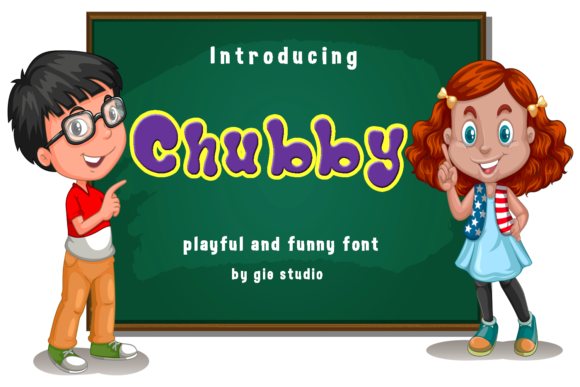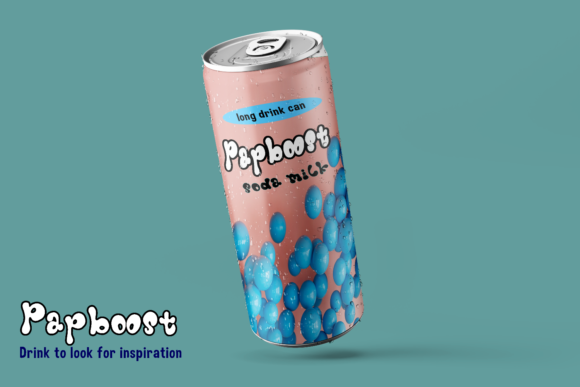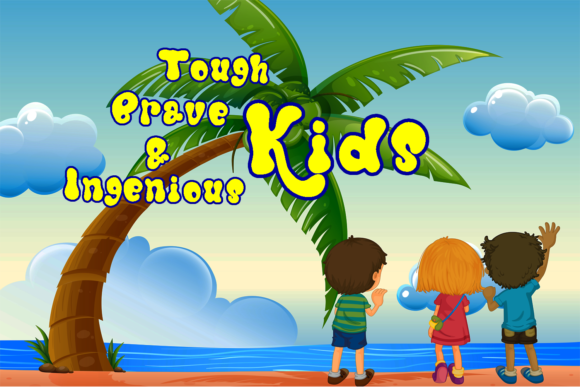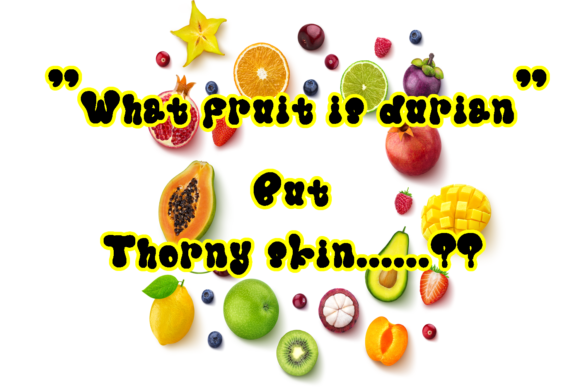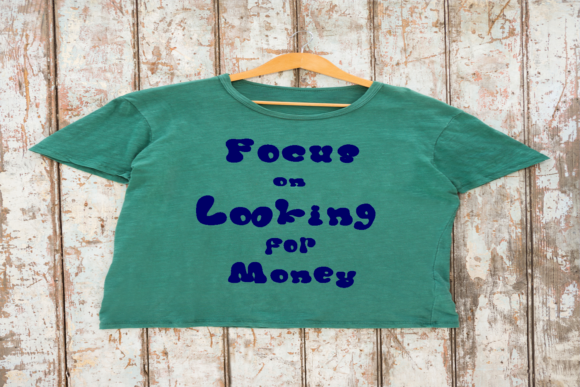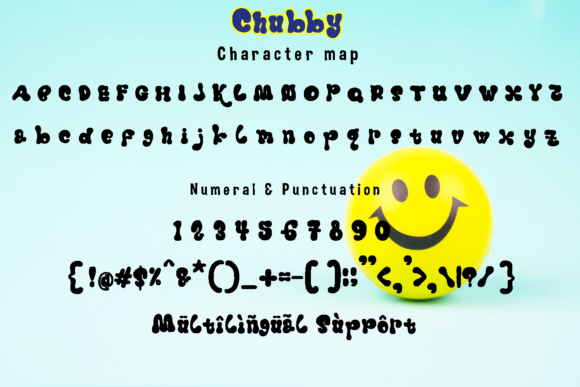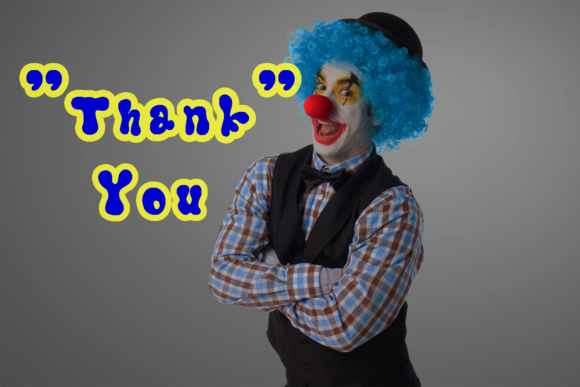
Get Ready to Play with the Chubby Font
Do you remember the moment when you discovered the perfect font to bring your child’s storybook to life? The one that made you smile and feel like a kid again? For many designers, that moment is just around the corner with the Chubby Font.
This adorable color font is designed to add a playful touch to any kids’ project. Its fun and quirky look is sure to delight children and parents alike. Whether you’re creating a birthday invitation, a book cover, or a fun logo, the Chubby Font is the perfect companion. With its compatibility with popular design software like PhotoShop, Illustrator, Silhouette, and Inkscape, you can unleash your creativity without any hassle.
Chubby Font Key Features
- Unique Characteristics: Chubby Font features a distinctive, rounded design with a soft, playful feel, making it ideal for use in children’s books, magazines, and other materials where a friendly tone is desired.
- Style Options: Chubby Font offers a range of style options, including regular, bold, italic, and bold-italic, allowing designers to add depth and variety to their designs.
Chubby Font Review
I recently had the chance to work with the Chubby Font, and I have to say, it’s a unique addition to any design project. ✨ One thing that works well is its ability to add a playful touch to any text. The font’s rounded edges and chunky feel can instantly make a design feel more approachable and fun.
Another advantage of the Chubby Font is its versatility. It can be used for a wide range of applications, from headings to body text, and even for creating custom icons. The font is also highly legible, making it a great choice for any project where readability is a top priority.
However, there are some limitations to consider. ⚠️ One of the main issues is the font’s limited character set. While it’s not a deal-breaker, it may require additional font licenses or workarounds for more complex projects. Additionally, the font’s chunky feel may not be suitable for all design styles or applications.
- Unique, playful design
- Highly legible
- Versatile for a wide range of applications
- Limited character set
- May not be suitable for all design styles or applications
Tips for Getting the Most Out of Chubby Font
Chubby Font is best used for creating playful and whimsical designs. To get the most out of it, try the following:
- Use it in combination with bright and bold colors.
- Experiment with different font sizes and styles.
- Use it for titles and headings to add a touch of personality.
Chubby Font is commonly used in:
- Children’s book illustrations.
- Playful website headers.
- Whimsical social media graphics.